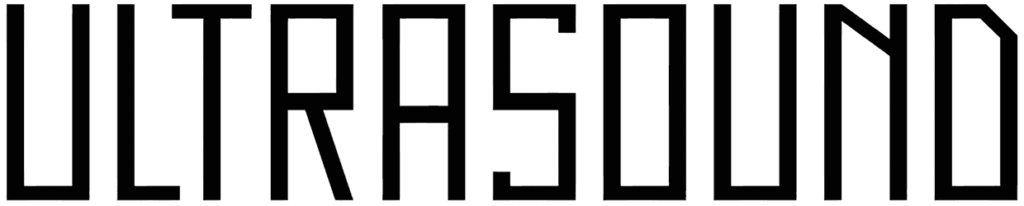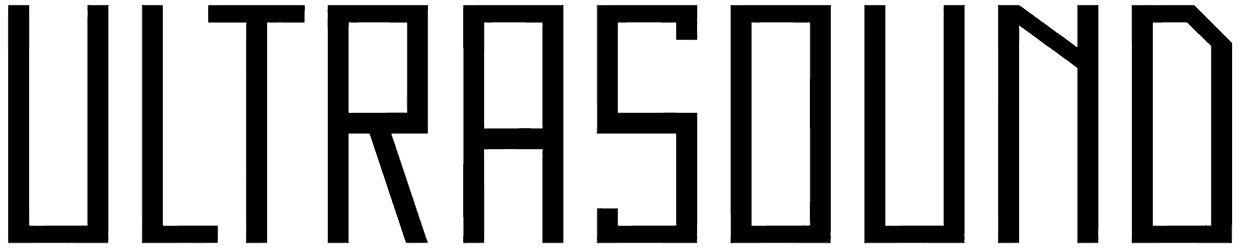
HFF Ultrasound Font
On some occasions, you need a minimal font to use for exceptional cases, such as the HFF Ultrasound font. This square font’s tall and strict letters feel sturdy and grab the viewers’ attention.
You can use it in different situations, such as logos, commercial packaging, and advertisements; however, it does not support lowercase letters. Moreover, the HFF Ultrasound font’s sharp and angular edges create a serious character for this techno font that makes it memorable.
Based on the lettering on an image submitted to the font ID forum here at Dafont. The poster kept on requesting and reposting ID requests for letterings related to Italian ultras and I thought I might grant one of his wishes, especially that Christmas is just around the corner. 🙂 Enjoy 13.12.2021